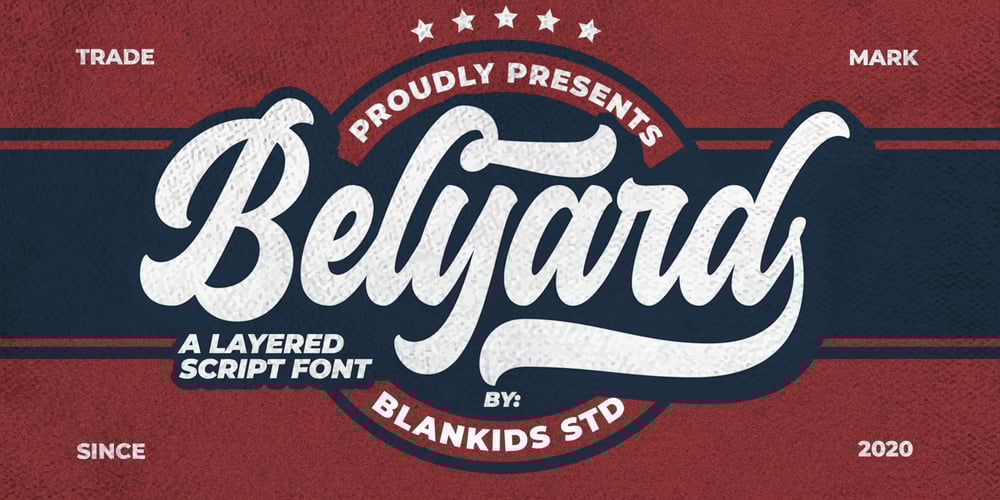
Belyard
Belyard font
Belyard Font Family was designed by Bangkit Tri Setiadi and published by Blankids. Belyard contains 2 styles and family package options. Introducing a new layered bold script font called Belyard .Belyard inspired by bold script logotype and retro font. Belyard came with open type features and multilingual accent good for logotype, poster, badge, book cover, tshirt design, packaging and any more.FEATURES : Uppercase Lowercase Number Punctuation Multilingual PUA Encode Opentype